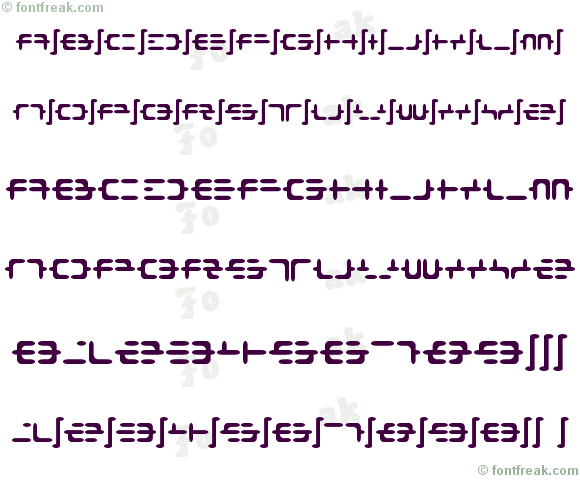
DEOXY
About Deoxy
Deoxy, crafted by Etherbrian, is a striking display font that captures attention with its unique visual flair. This font falls into the decorative category, showcasing a playful yet sophisticated design that perfectly balances creativity and readability. The letters exhibit a medium to bold stroke weight, creating a solid presence that stands out in any context. With its moderate contrast and generous spacing, Deoxy maintains clarity, making it suitable for both large headings and shorter text applications.
The design of the Deoxy font features rounded edges and unconventional curves, giving it a friendly and inviting appearance. These distinctive characteristics make it an excellent choice for a variety of projects, including wedding invitations that require a touch of elegance, movie posters where boldness and originality are key, and restaurant menus that need to entice diners with a modern aesthetic. Additionally, Deoxy works wonderfully for branding materials, as its unique flair can help small businesses establish a memorable identity, and for content creators looking to enhance their visual storytelling.
Targeted primarily at graphic designers, small business owners, and content creators, Deoxy provides versatility in design applications while exuding a sense of individuality. Its freeware license allows for easy access, making it an appealing option for those on a budget yet eager to elevate their projects.
In summary, the Deoxy font stands out due to its distinctive design elements and versatile usage possibilities. It combines artistic flair with practical functionality, making it an essential addition to any designer's toolkit. For those seeking to make a statement, the Deoxy font free download offers a fantastic opportunity to enhance their creative endeavors.